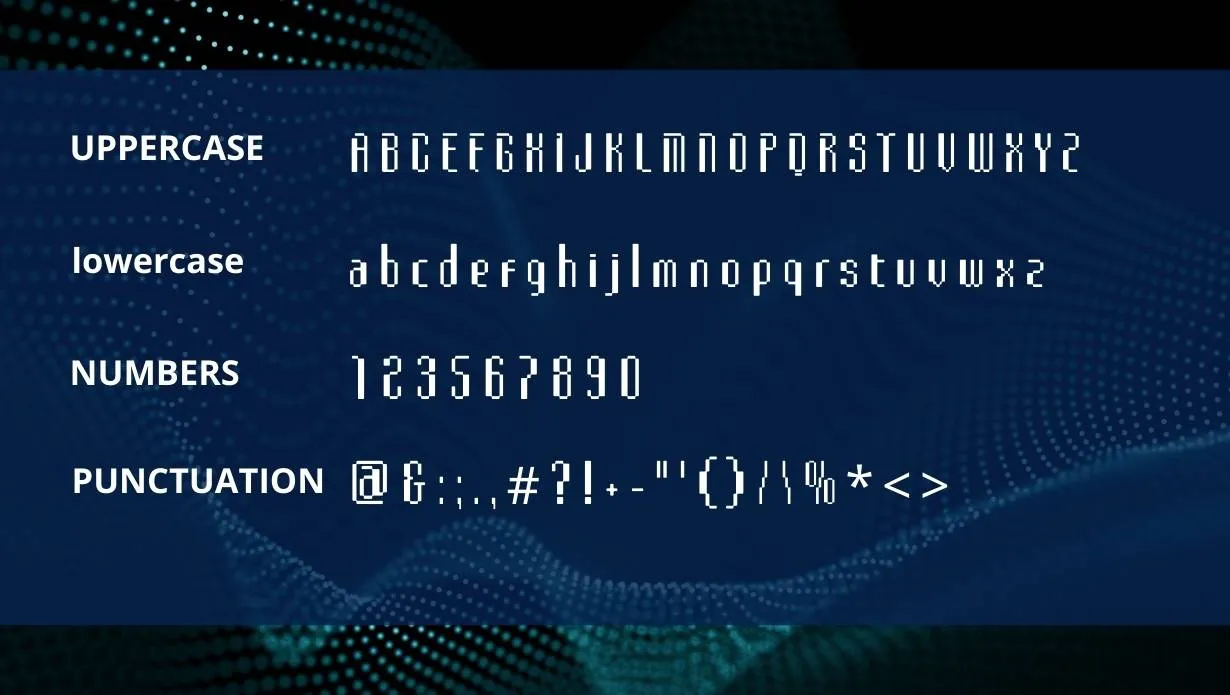
Comdot is a retro typeface family designed by C Font in the early 1960s. The font was inspired by the grotesque style of pixelated typefaces. It has a strong geometric structure and is characterized by its clean, minimalistic forms.
| Designer | C Font |
| Style | Retro |